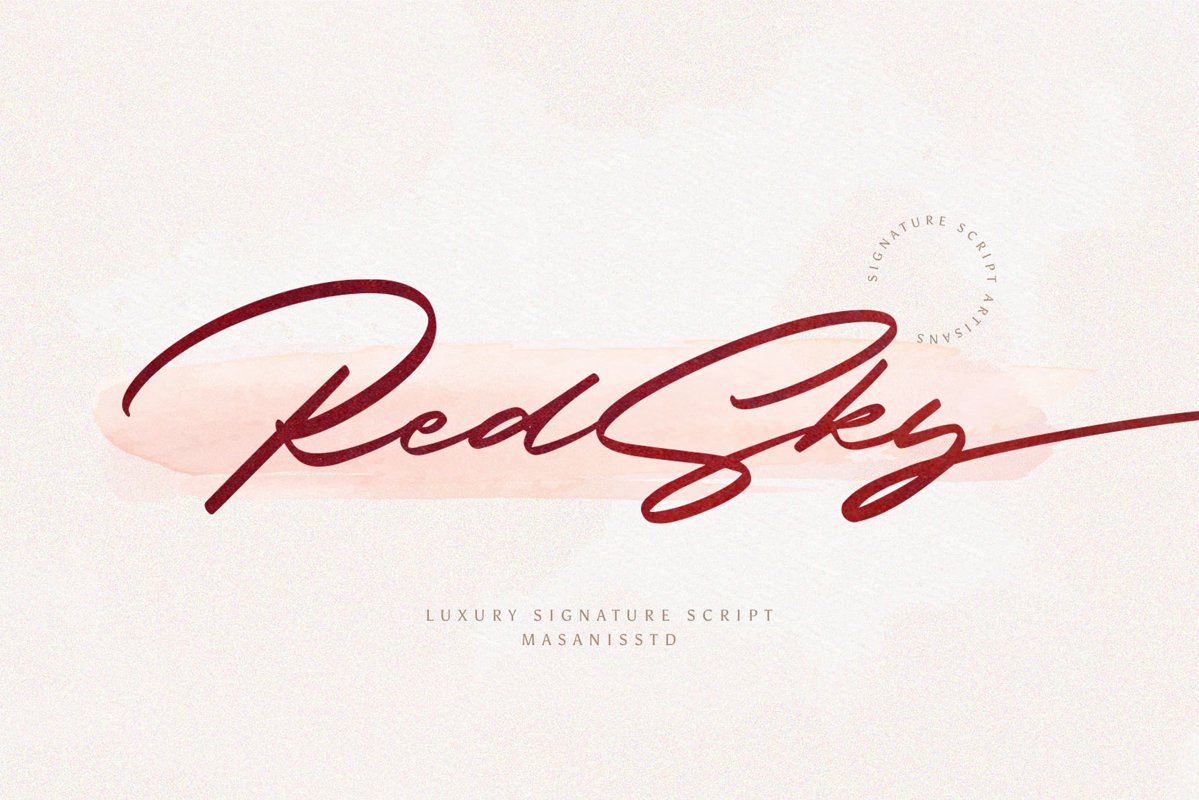
RedSky - Luxury Signature
RedSky Slanted
RedSky
RedSky is a magical handwritten font carefully created with a touch of elegance. This is a beautiful combination of timeless elegance and authentic calligraphy. It features an incredibly classic style, while still keeping a friendly feel. This font is perfect for logo, invitation, stationery, wedding designs, social media posts, advertisements, product packaging, product designs, label, photography, watermark, special events or anything and fonts are provided in TTF & OTF formats.